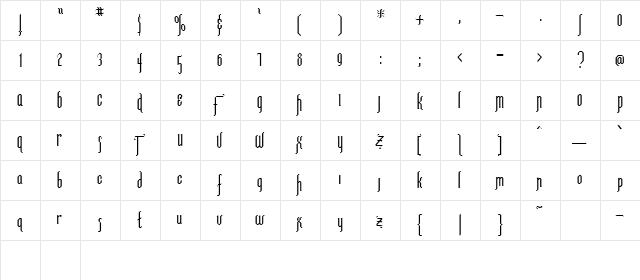
Luxembourg Regular
Design Context for Luxembourg Typeface
Luxembourg is a composed and adaptable typeface that performs quietly and consistently across a wide range of design contexts.
Pro Tip: Pair Luxembourg with a font of contrasting weight or personality to build a more expressive typographic hierarchy.